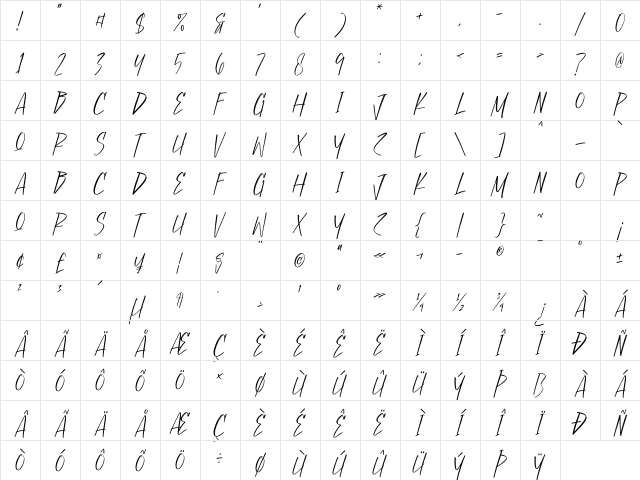
Justice Hunter Regular Free Font
Justice Hunter Regular
Foundry: Perspectype Studio
Designer: Heru Utama Putra
Design Context for Justice Hunter
Justice Hunter is a composed and adaptable typeface that performs quietly and consistently across a wide range of design contexts.